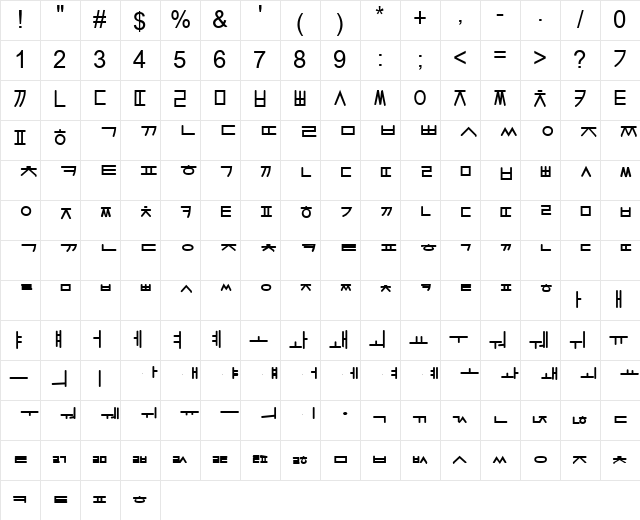
HangulGothic takes a clean, functional approach - its unadorned letterforms prioritise legibility and work reliably across screen and print environments.
Font Pairing: Works well alongside a characterful serif or display font that can carry the expressive load while HangulGothic handles the functional copy.
Pro Tip: Use HangulGothic for UI labels, navigation, and short-form body copy where clean legibility is the priority.